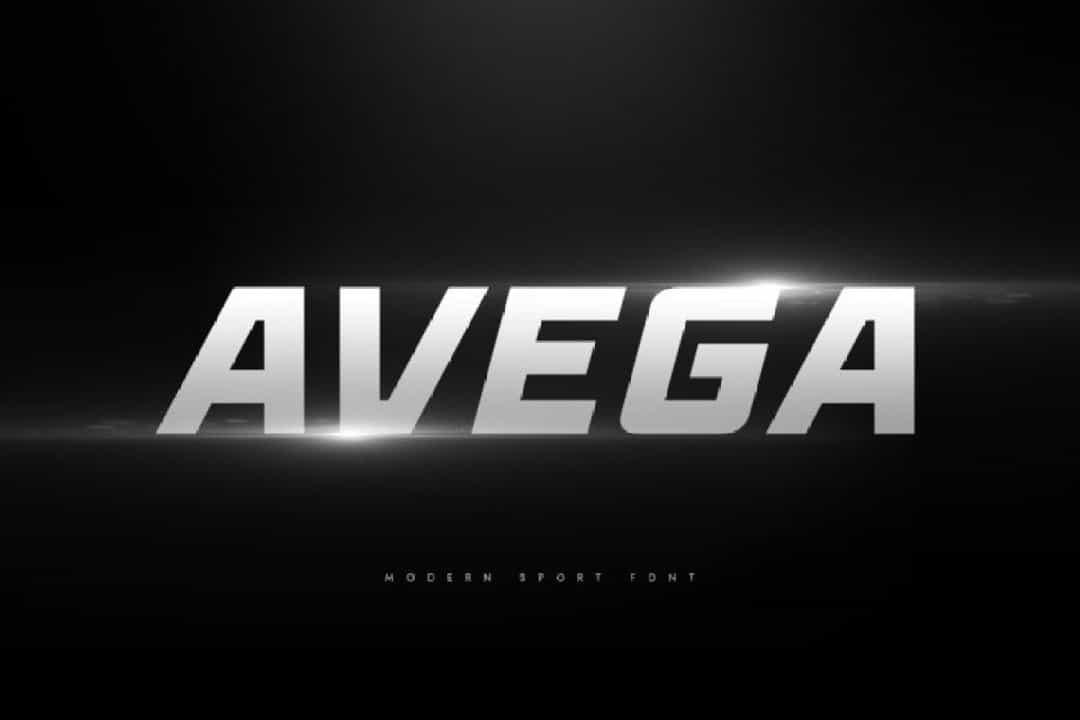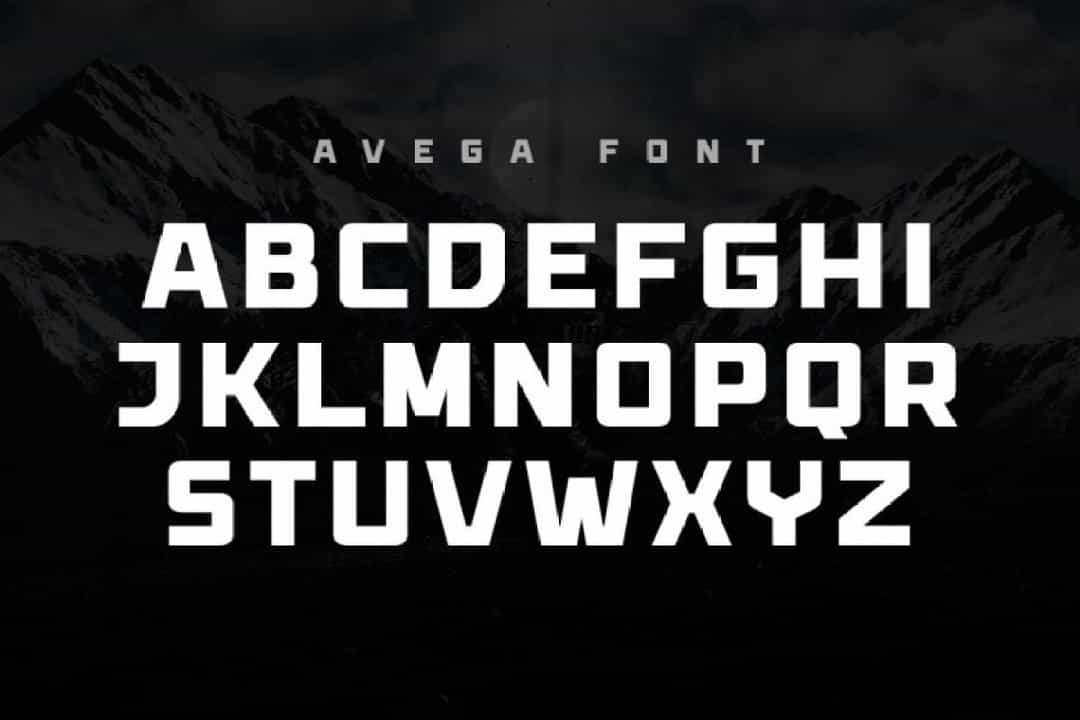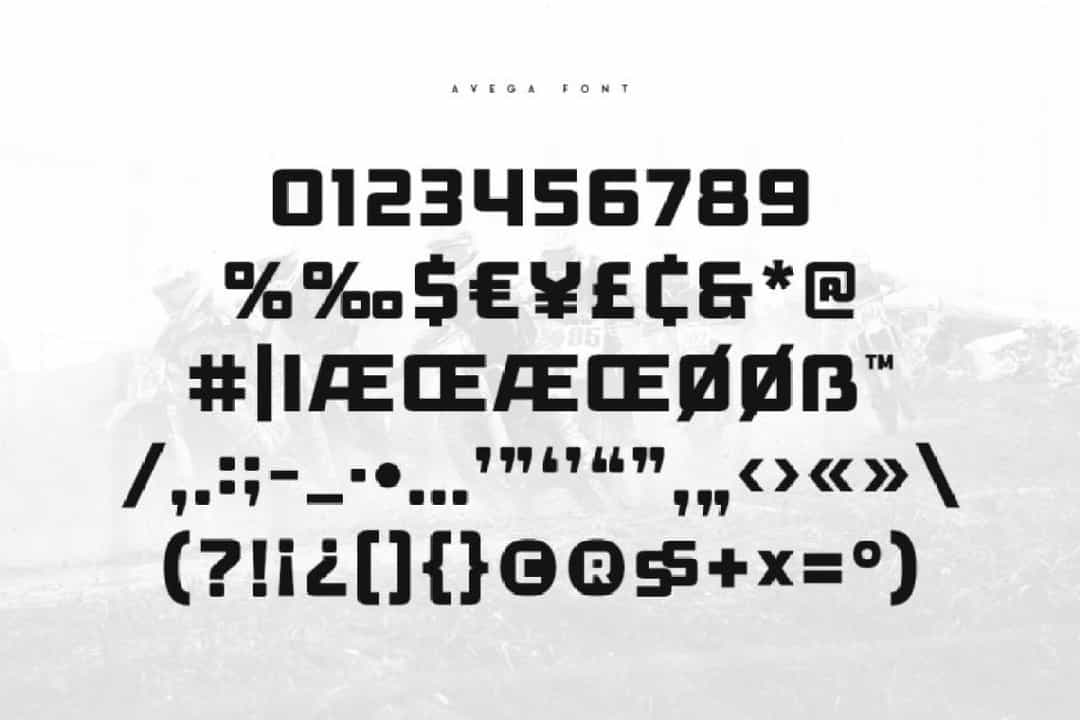
‘Avega’ is an athletic sport sans-serif font designed for branding and dynamic typography in headlines and titles. It also has a set of alternative styles which guarantee your designs will be memorable. It’s just great if you add your own style and headline description for sport, technology, action and war theme.